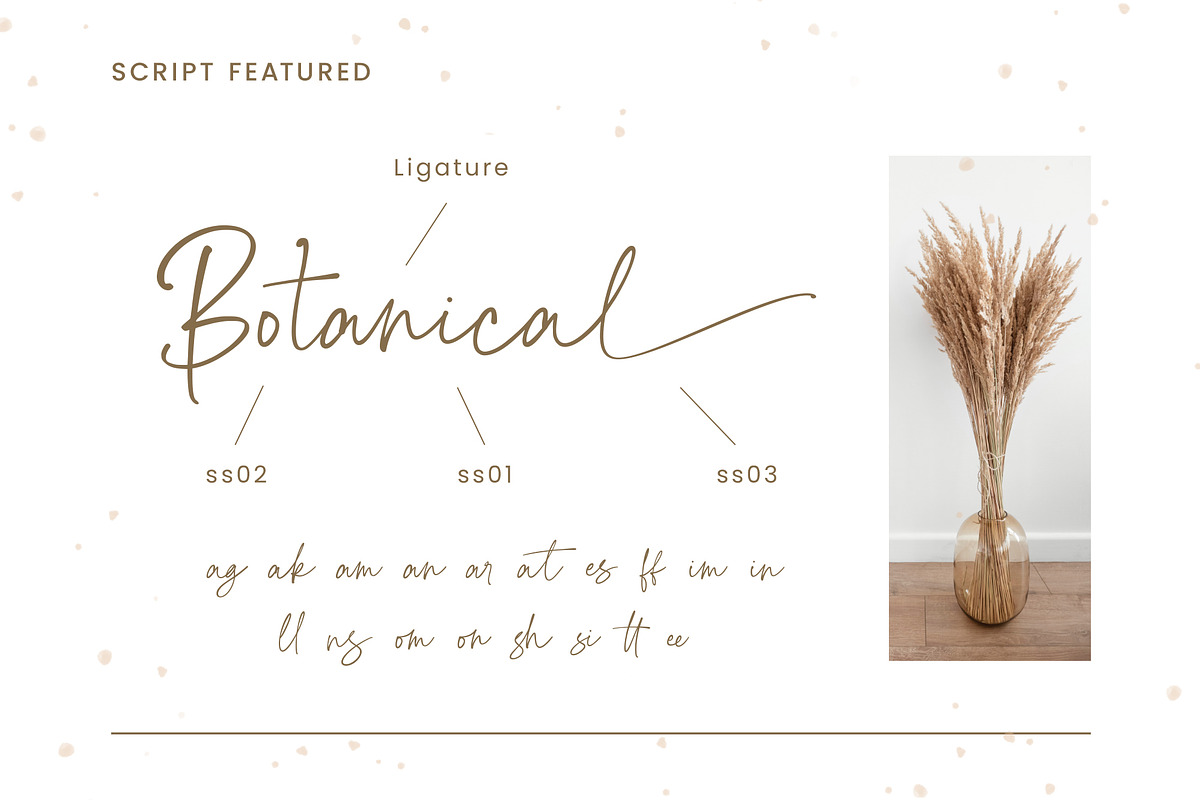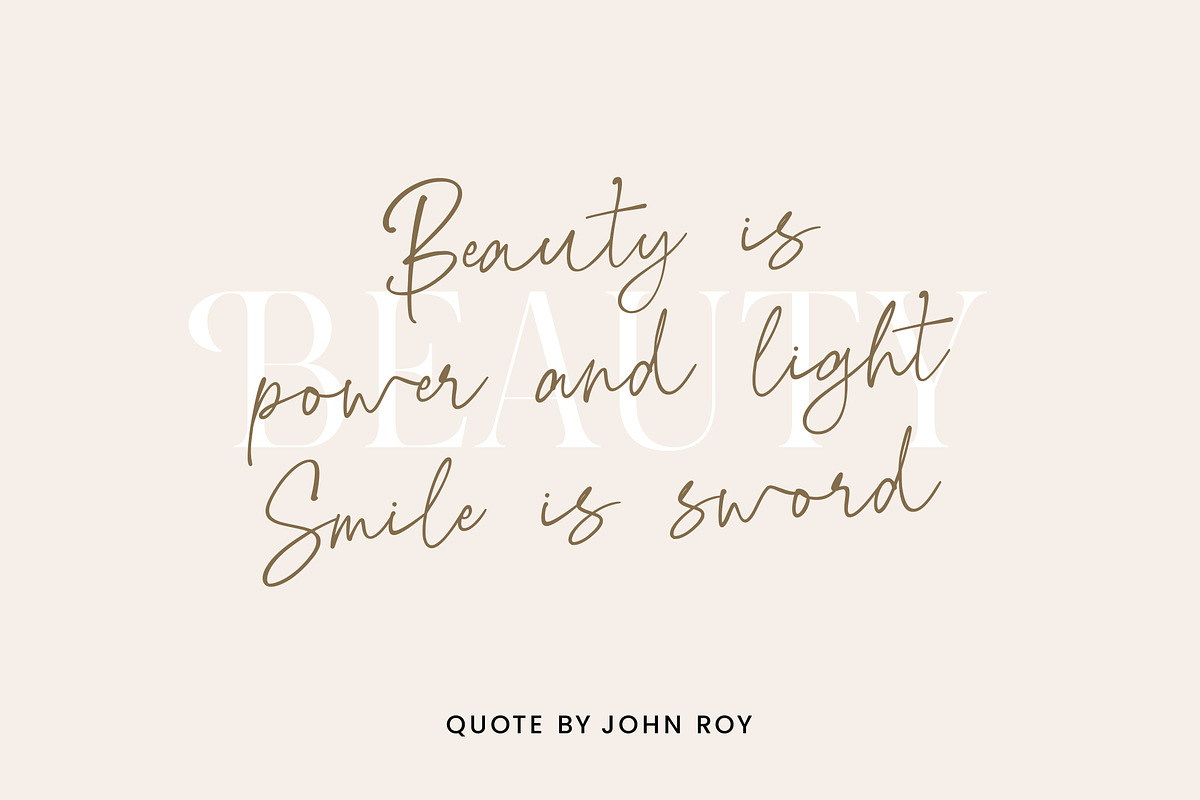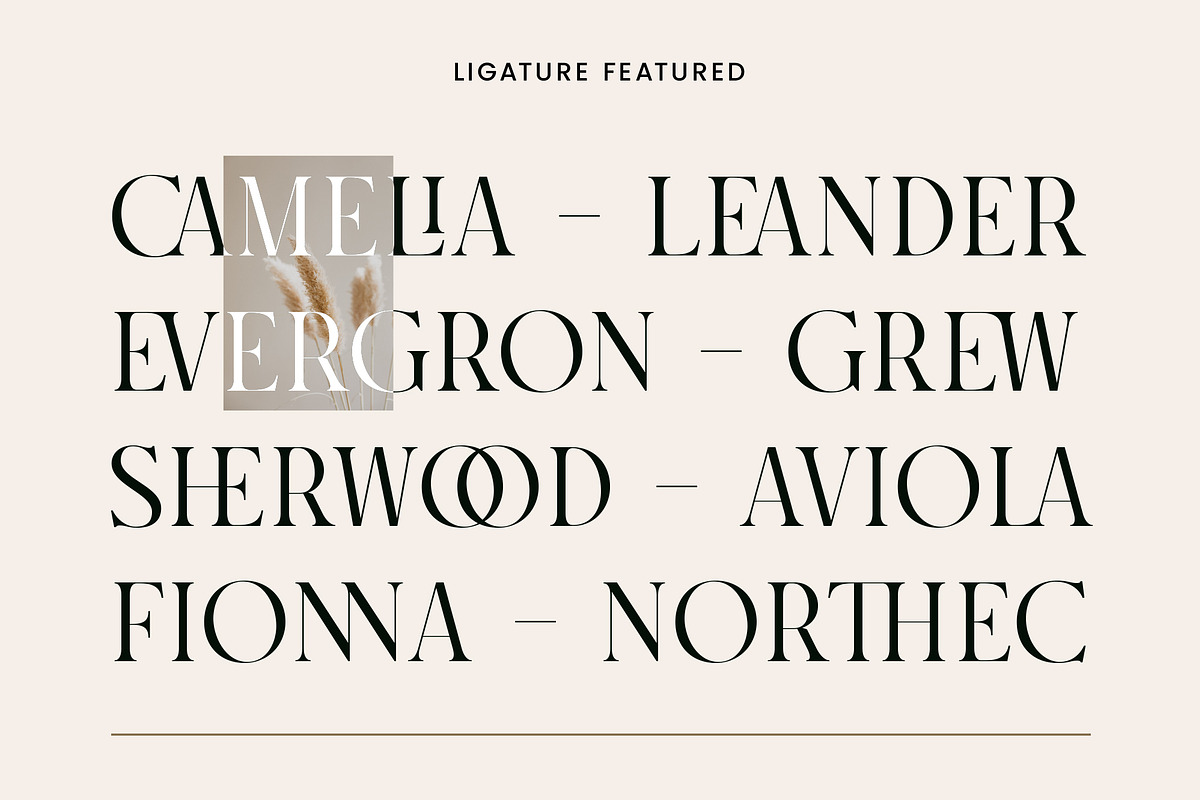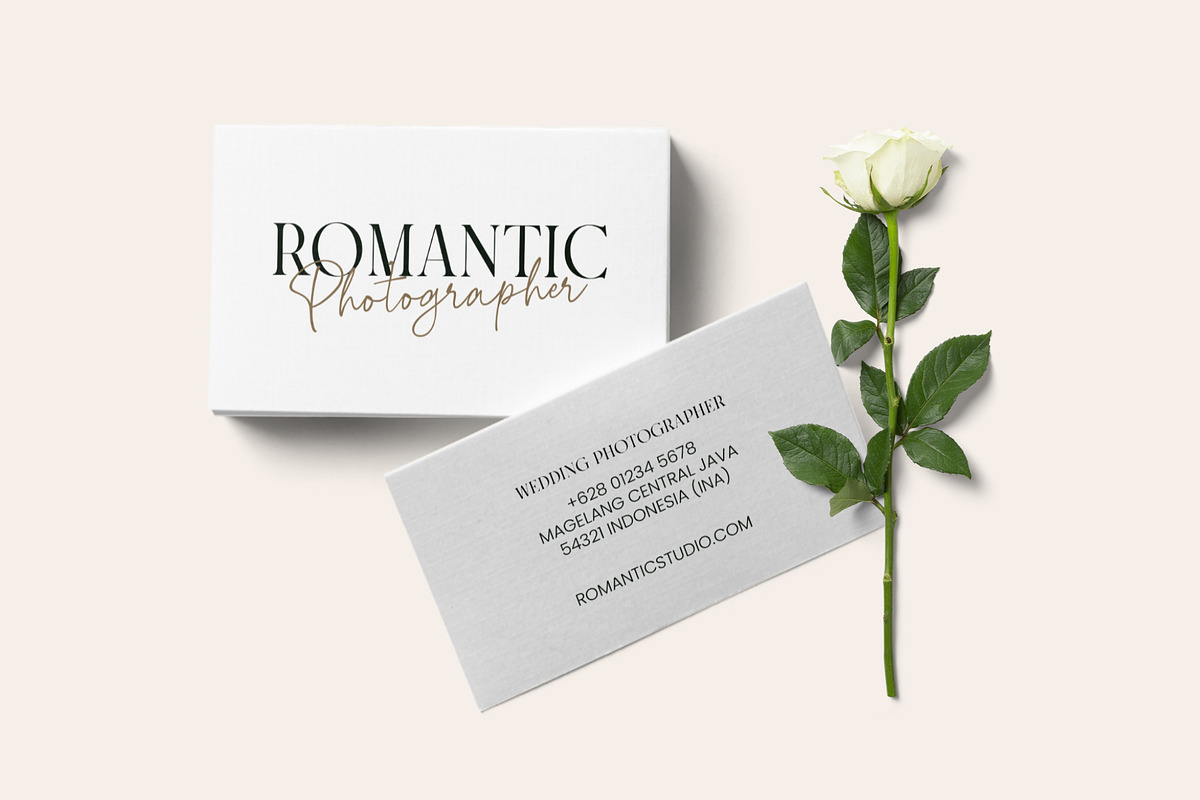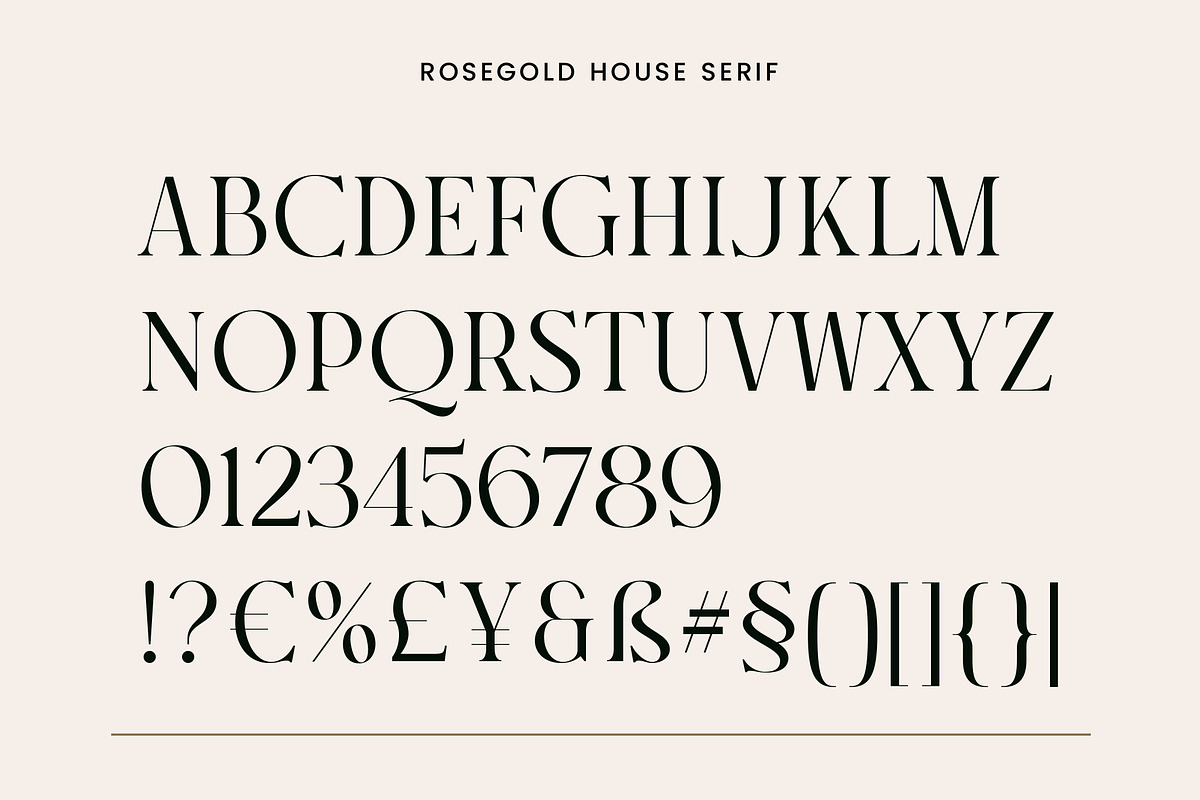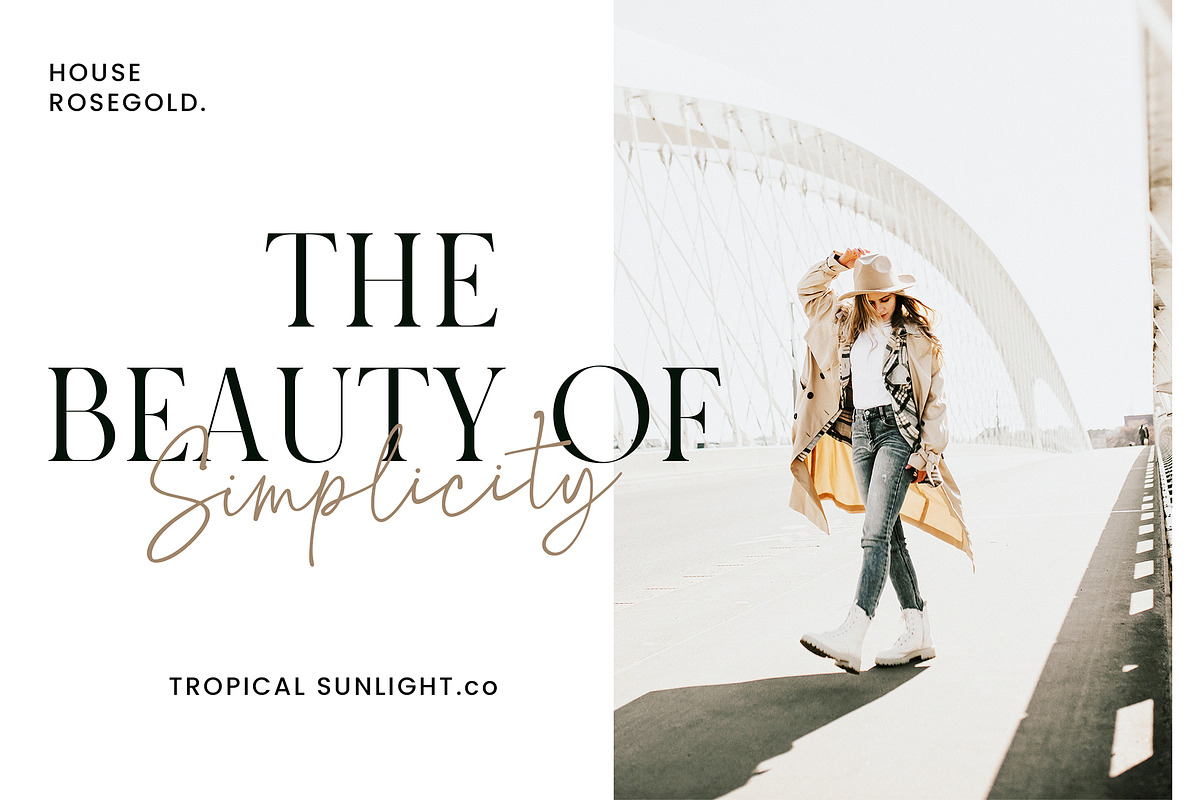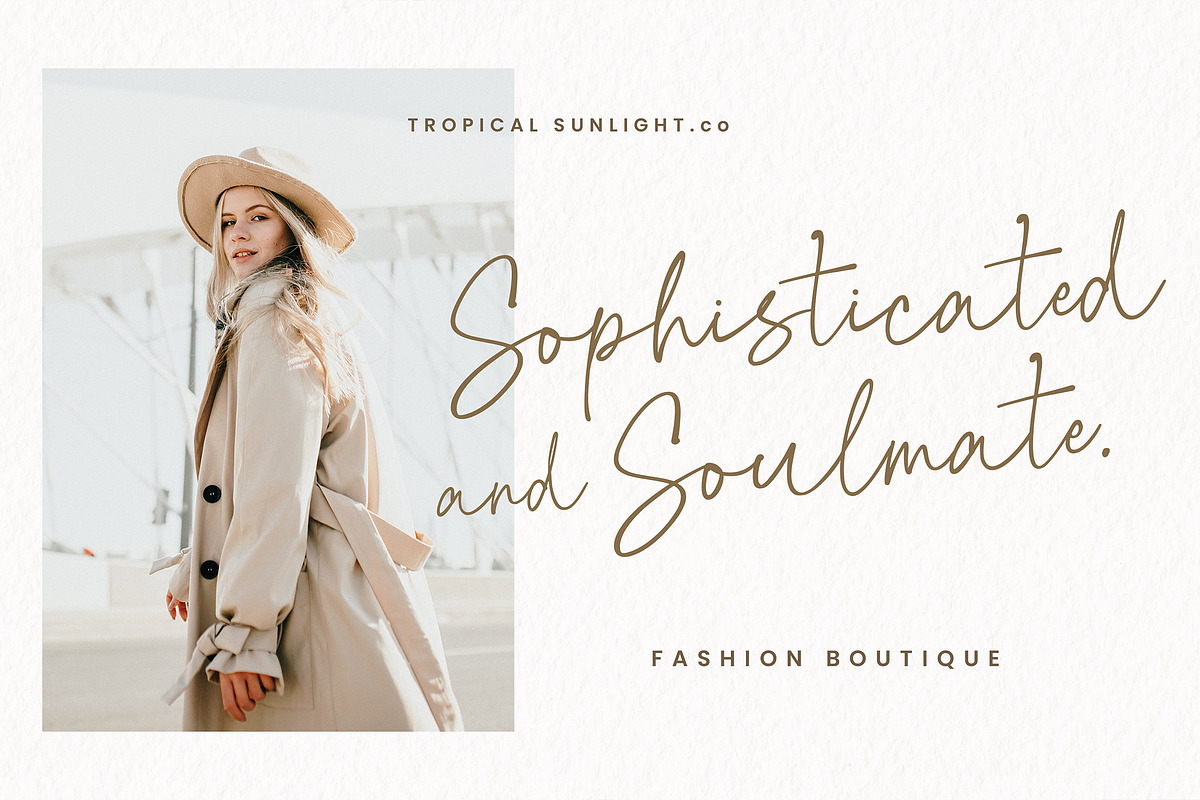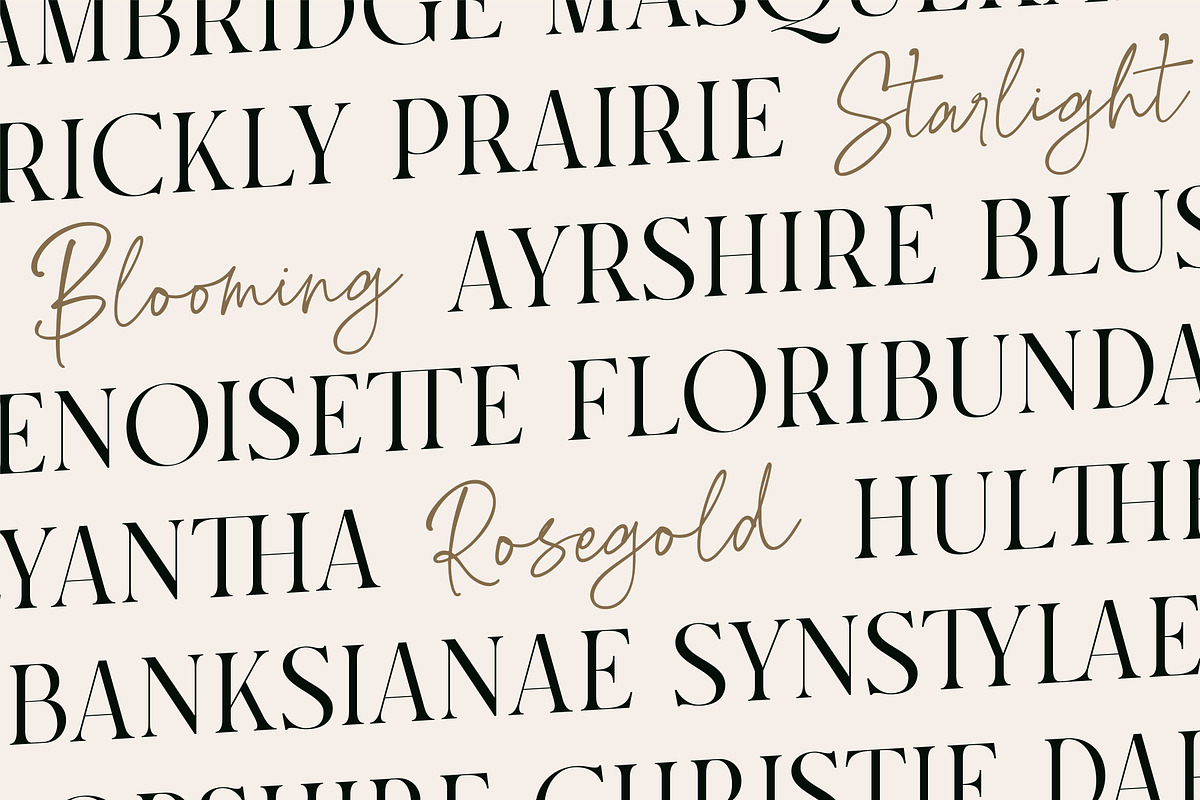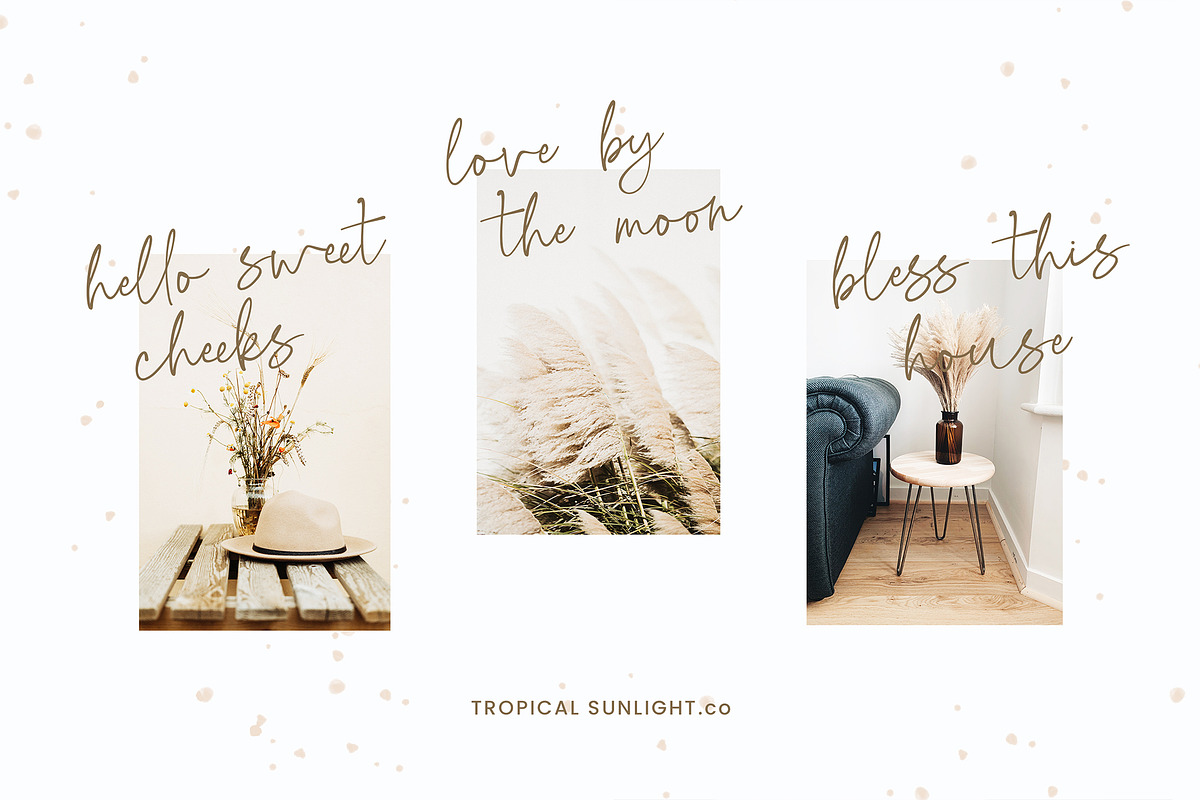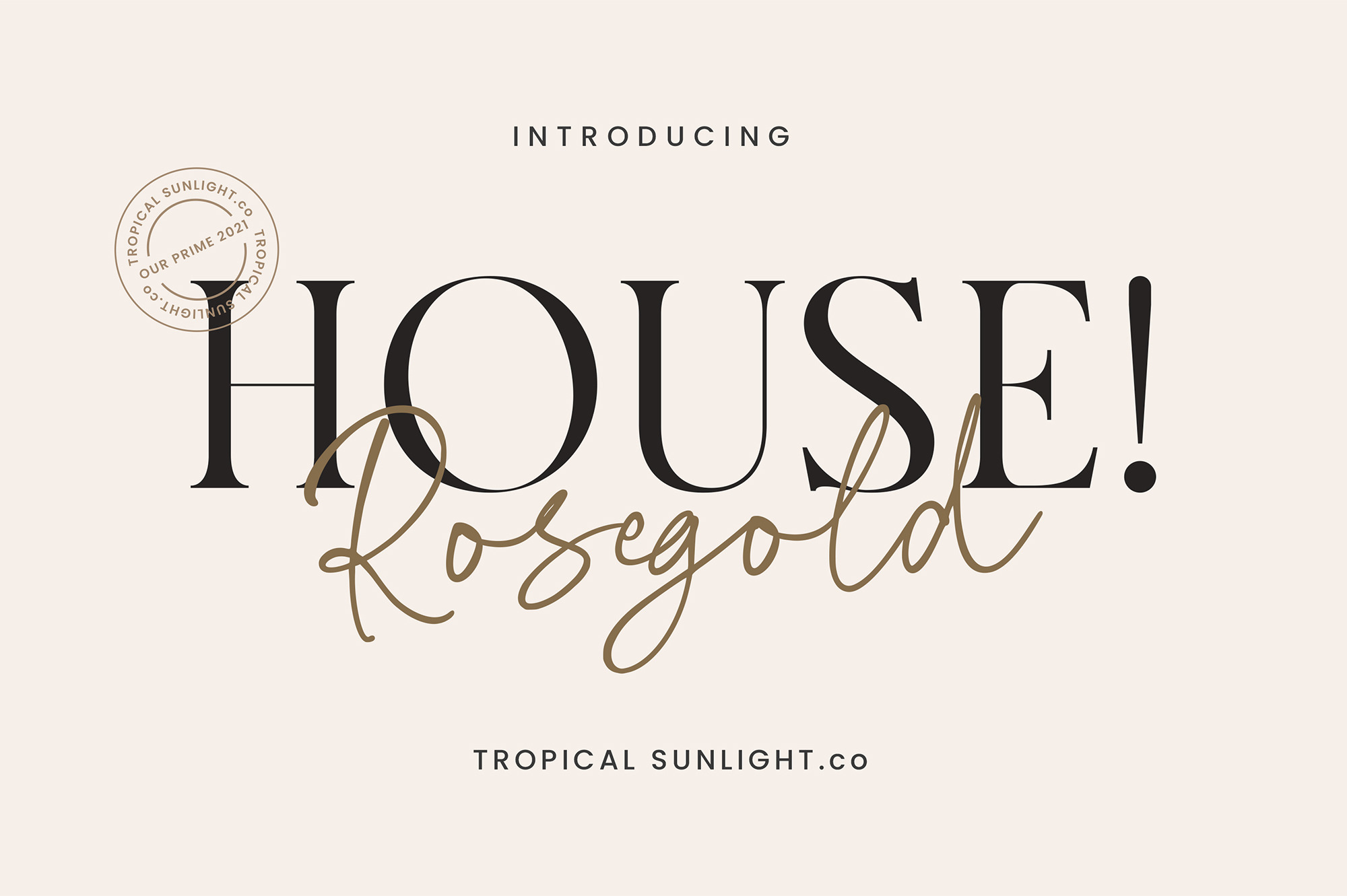
Rosegold House - Modern Font Duo
The font is called "Rosegold House", it is font duo with modern themes. The font comes with two pairing typefaces (script and serif). Script font contains 3 set alternates and some ligatures. And the serif font contains 1 set alternates and some ligatures. The Rosegold House matches apply in some designs such as the logotype, quotes, wedding invitation, business card, packaging, branding, and more custom design.
Rosegold House includes :
- Uppercase, lowercase, numeral, symbol and punctuation in script font
- All-caps, numeral, symbol and punctuation in serif font